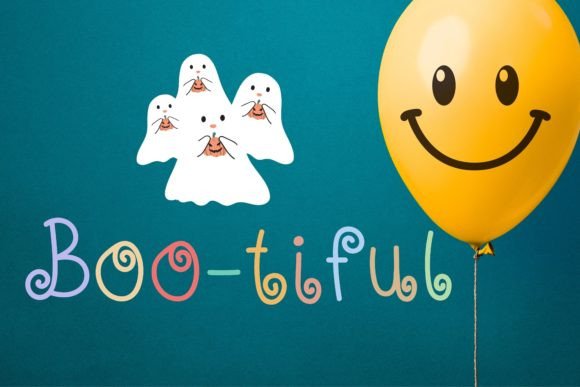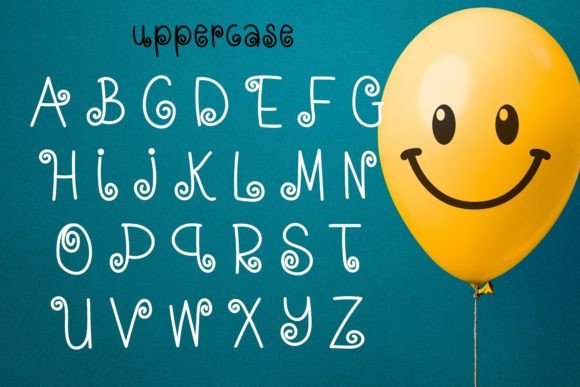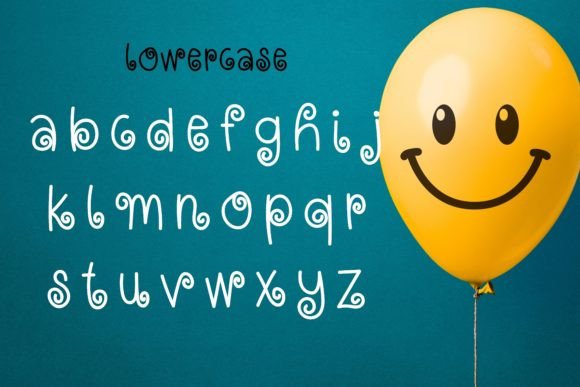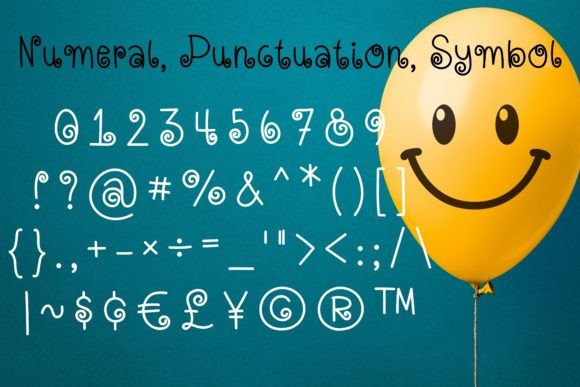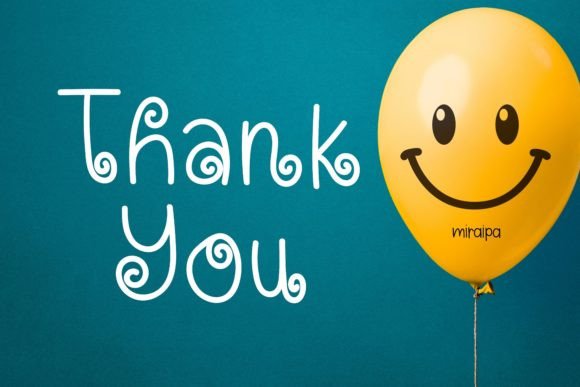
Introduction to Happy Swirl Font
As a designer, have you ever found yourself in a creative rut, struggling to find the perfect font to bring your project to life? I know I have. It was during one such moment, staring blankly at my computer screen, that I stumbled upon the Happy Swirl Font. Its playful, handwritten style immediately caught my attention, and I knew I had to learn more.
The Happy Swirl Font is a high-quality design resource that offers a modern yet whimsical twist on traditional typography. With its transparent background, it’s perfect for designers who want to add a touch of magic to their creative projects. And the best part? It’s available for free download, making it an invaluable resource for designers on a budget.
Whether you’re working on a children’s book, a wedding invitation, or a social media campaign, the Happy Swirl Font is sure to bring a smile to your audience’s face. Its value lies not only in its aesthetic appeal but also in the sense of joy and wonder it can evoke. As a designer, having access to a versatile and high-quality font like Happy Swirl Font can be a game-changer for your creative projects.
Key Features of Happy Swirl Font
- High-quality, unique design ideal for creative projects and designs requiring a playful touch.
- Features a transparent background, allowing for easy layering and customization in design projects.
- Perfect for use in logos, branding materials, and other design elements where a whimsical feel is desired.
- Designed to be highly versatile, making it suitable for a wide range of design projects, from digital graphics to print materials.
Honest Review: Happy Swirl Font
As a designer, I’ve come across my fair share of fonts, but the Happy Swirl Font is definitely a unique addition to my design resource library. I was drawn to its playful and whimsical nature, perfect for a creative project that requires a bit of personality.
Here’s what I like about the Happy Swirl Font:
- ✨ High-quality design that’s sure to grab attention.
- ✨ A transparent background, making it easy to layer and combine with other design elements.
However, I do have a few reservations:
- ⚠️ The font may be a bit too playful for more formal or professional projects.
- ⚠️ The swirl pattern can sometimes be distracting, especially when used in large quantities.
Overall, I think the Happy Swirl Font is a fun and creative addition to any design library. While it may not be suitable for every project, it’s definitely a great option for those looking to add a bit of whimsy to their designs.
Happy Swirl Font is ideal for creative projects, such as:
– Social media posts
– Flyers and brochures
– Presentations and slides
– Website headers and footers
– Digital invitations and cards
Tips for Getting the Most Out of Happy Swirl Font
For a transparent background, use Happy Swirl Font with a white or light-colored background.
Also, consider pairing Happy Swirl Font with other design resources to create a cohesive look.